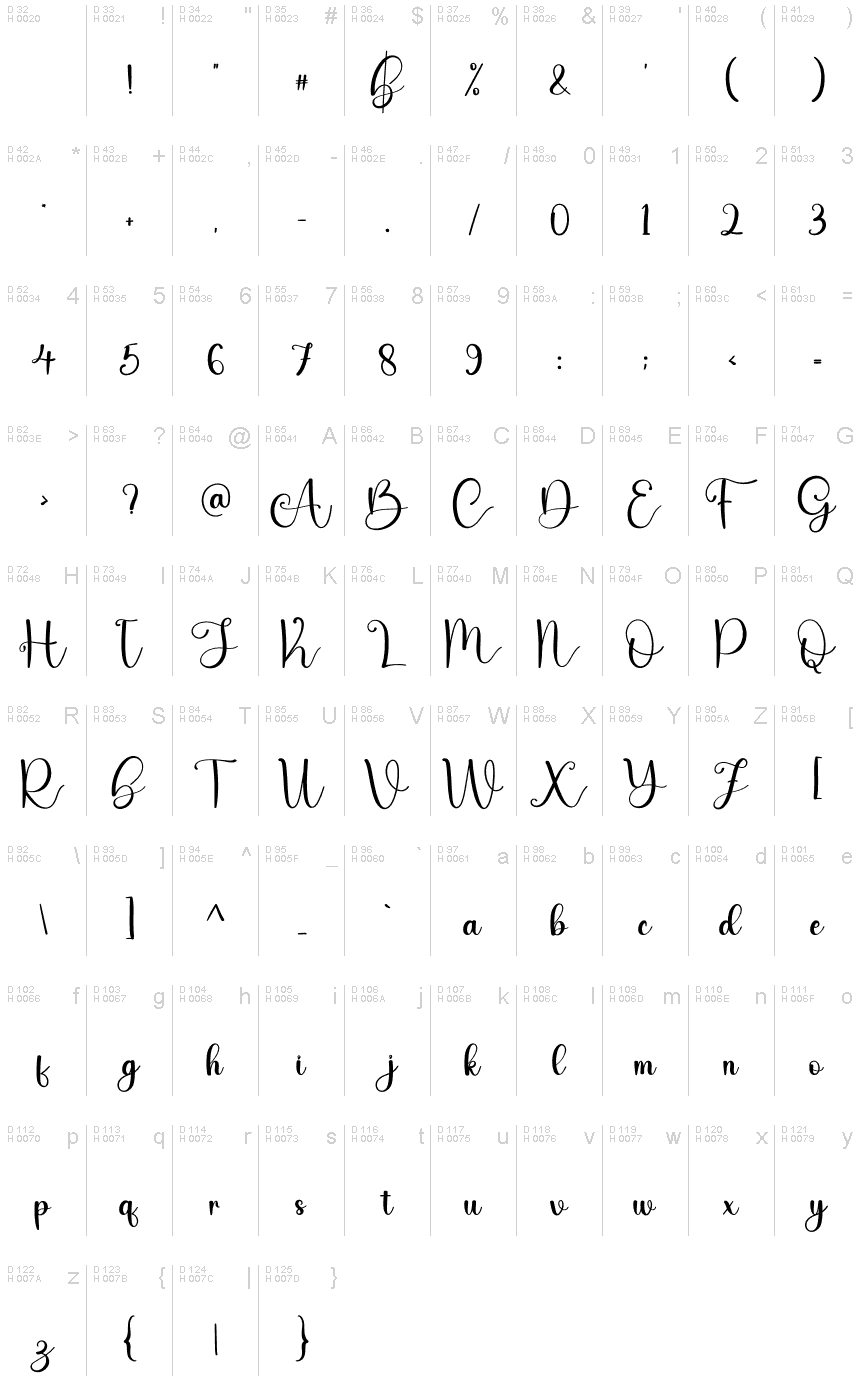
Yearbook
Yearbook is a breathtaking calligraphy font by Harlek Studio. With its delicate semi-light weight, this font adds an elegant touch to any design project that requires a touch of sophistication.
Its flowing strokes and graceful curves make it perfect for wedding invitations, event posters, or romantic greeting cards. The Yearbook font typeface guarantees to evoke feelings of nostalgia and timeless beauty, making it an excellent choice for vintage-themed projects or antique book covers. Let Yearbook elevate your designs with its unique charm and captivating allure.